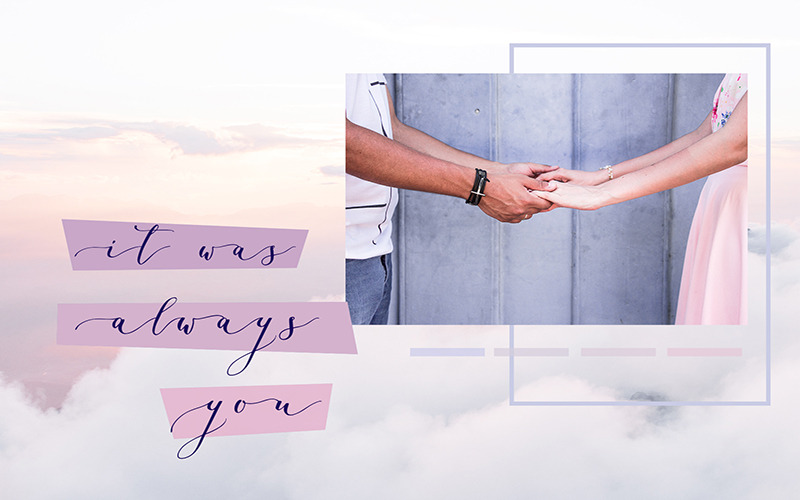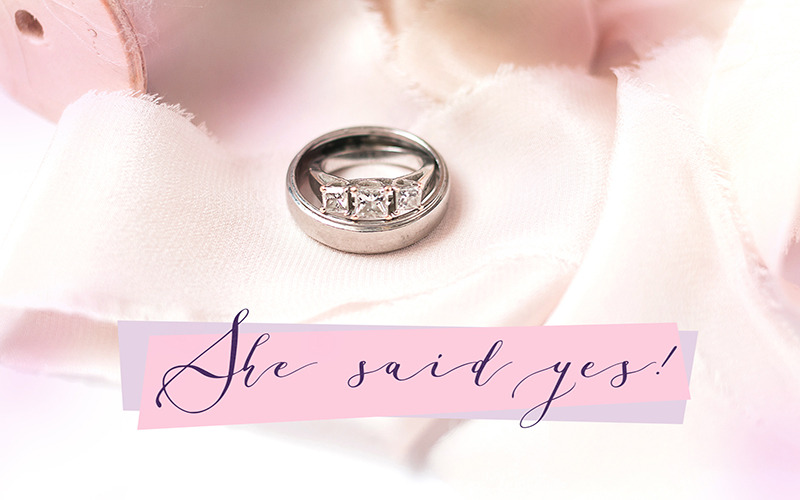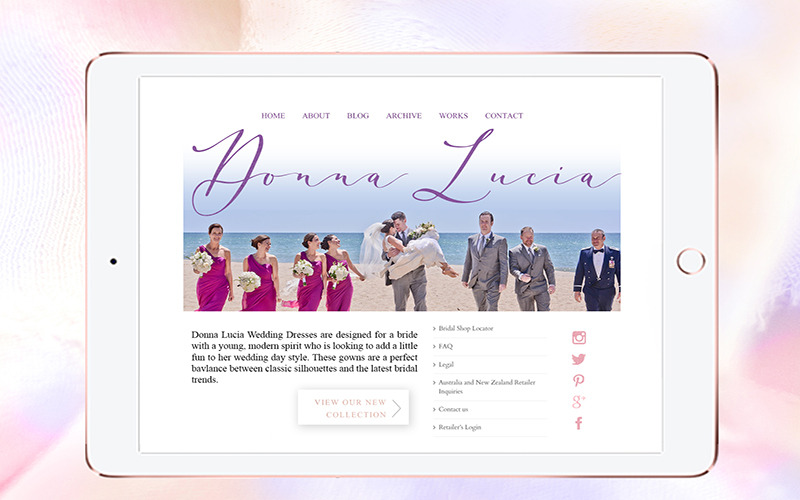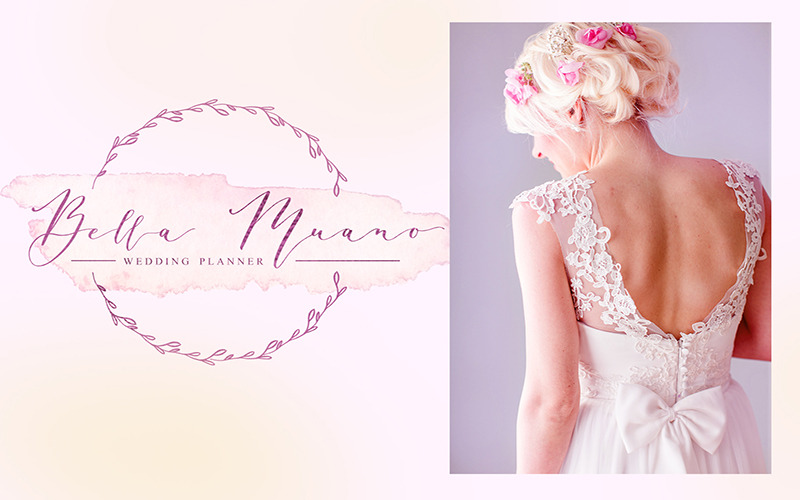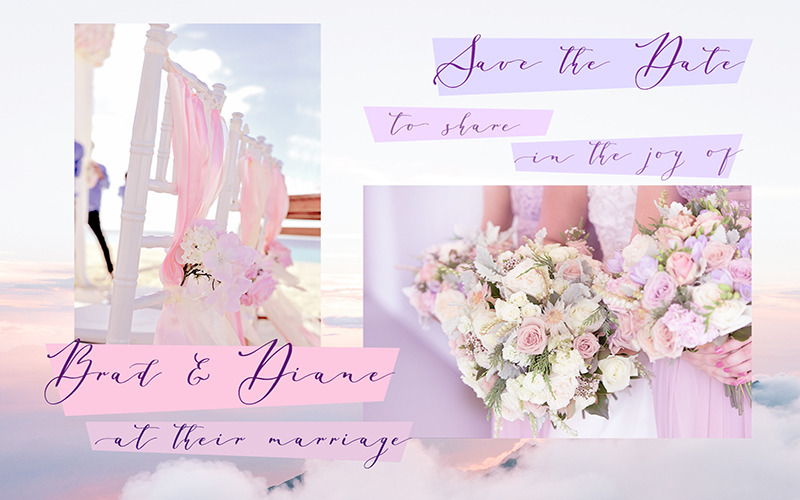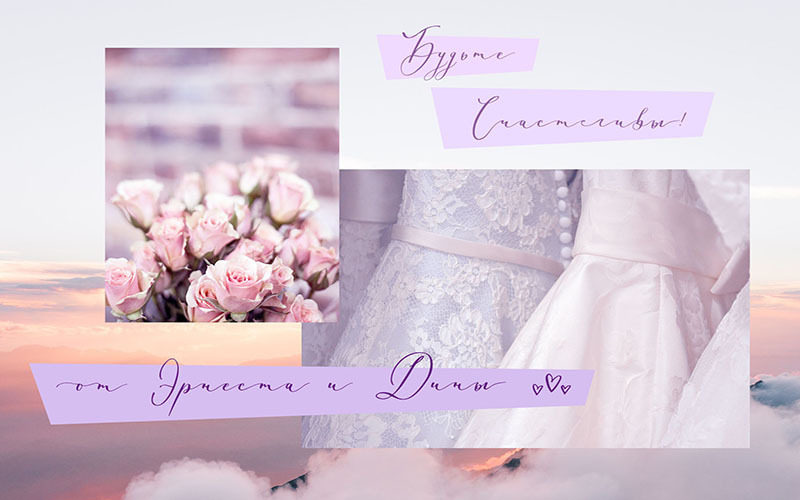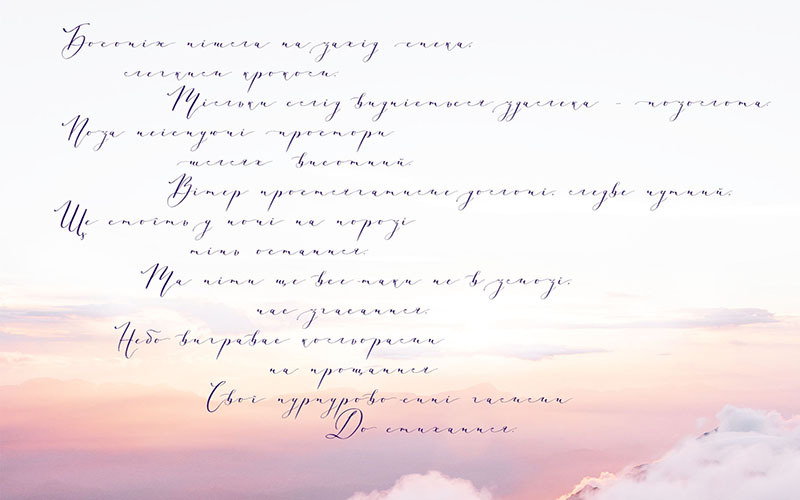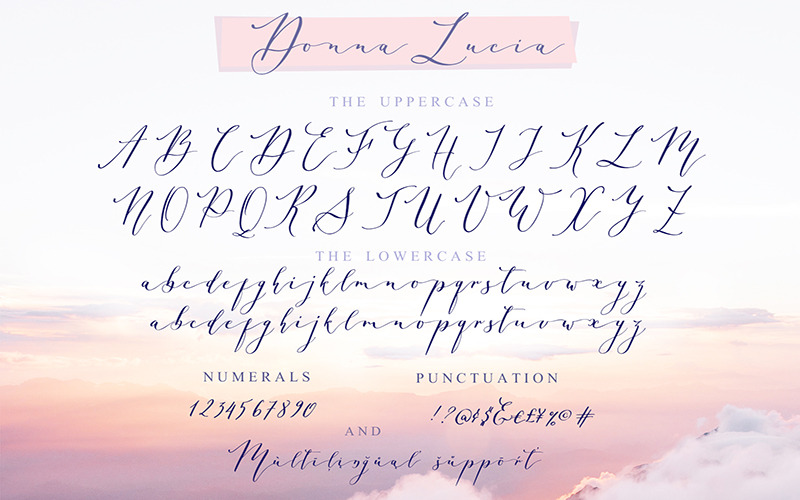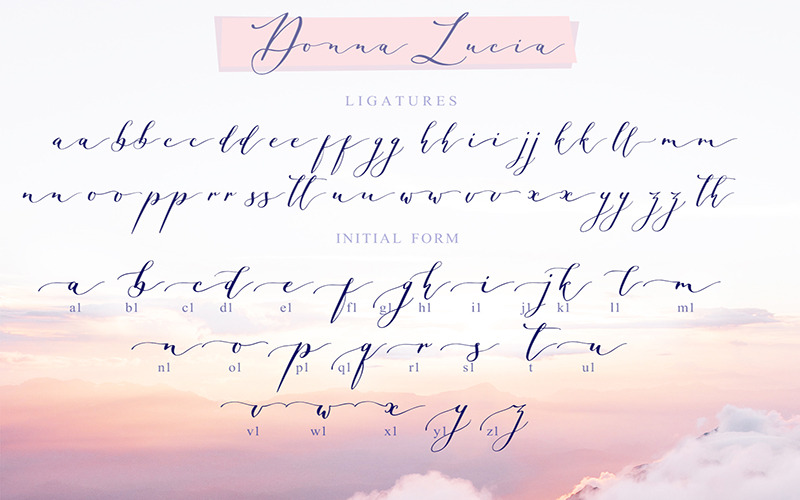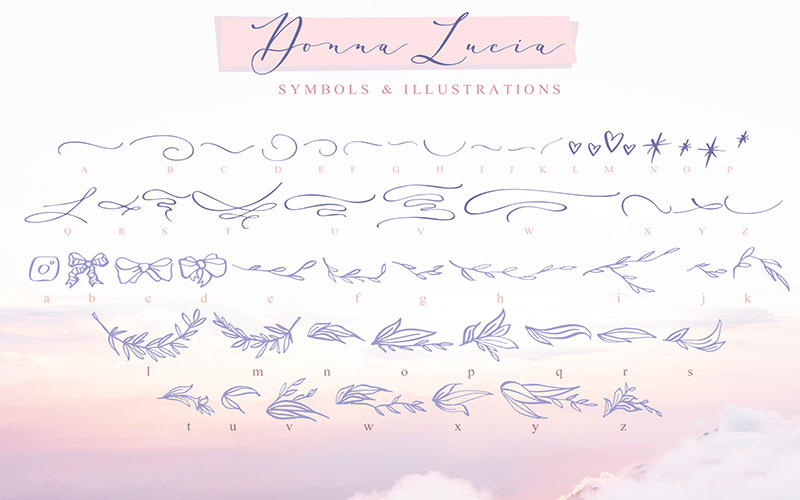
Donna Lucia Feminine Font + Cyrillic
I am happy to present to you Donna Lucia feminine font + Logos CyrillicUppercase lowercase and lowercase with flourishes!
Donna Lucia is feminine and graceful calligraphic handwritten script font, plus a Symbols font with 52 lovely hand-drawn swashes and illustrations and BONUS! 3 pretty premade logos & 5 delicate watercolor splashes!
Donna Lucia script is perfect for branding, logos, wedding stationery, social media, packaging, and other projects that require an elegant touch.
Donna Lucia script contains a full set of uppercase letters and 3 full sets of lowercase letters, (standard, alternative, and initial form) and 27 ligatures - which can be used to create a handwritten calligraphy look. Donna Lucia Symbols is a font with over 52 hand-drawn elements, illustrations, and swashes and can help to make your design more original. Combine and arrange swashes and illustrations to create your own designs and make borders, frames, dividers, logos and more (just use A-Z and a-z keys in the included Donna Lucia Symbols font). A different symbol is assigned to ever uppercase or lowercase standard character so you do not need graphics software just simply type the letter you need.
- Multilingual Support for 31 languages: Latin glyphs for Afrikaans, Albanian, Basque, Bosnian, Catalan, Danish, Dutch, English, Estonian, Faroese, Filipino, Finnish, French, Galician, Indonesian, Irish, Italian, Malay, Norwegian Bokmål, Portuguese, Slovenian, Spanish, Swahili, Swedish, Turkish, Welsh, Zulu. And Cyrillic glyphs support for Russian, Belorussian, Bulgarian and Ukrainian languages. (Does font support more Cyrillic languages just type a message in the text box below and see if all characters you’ll need are there.)